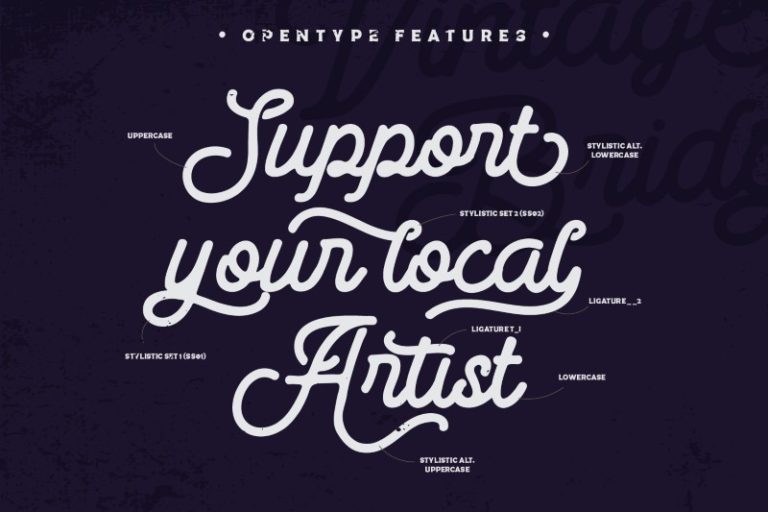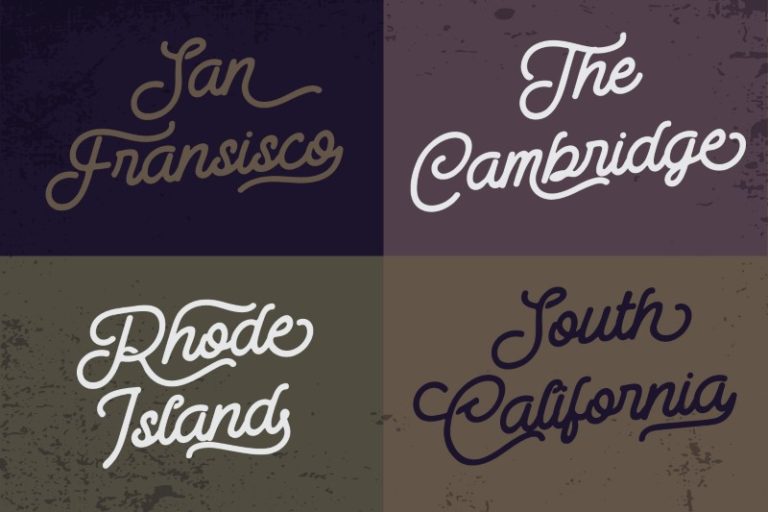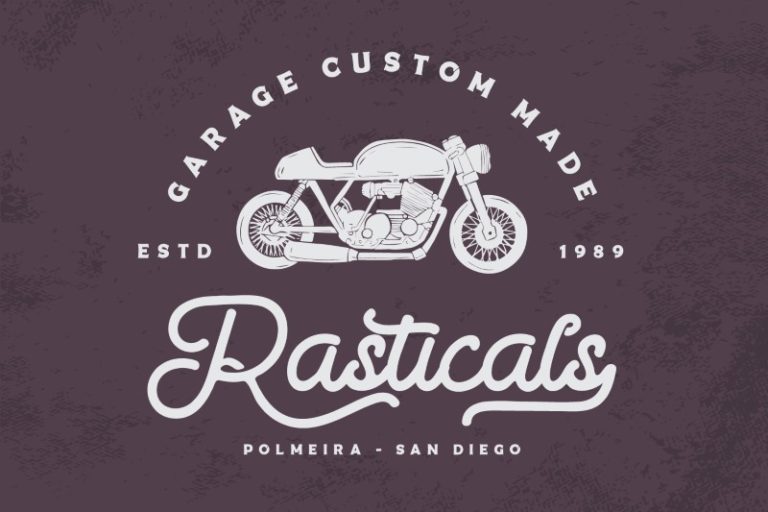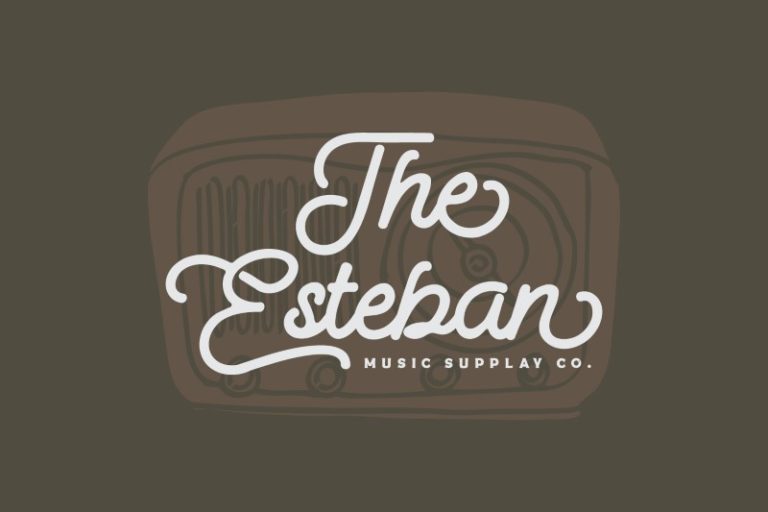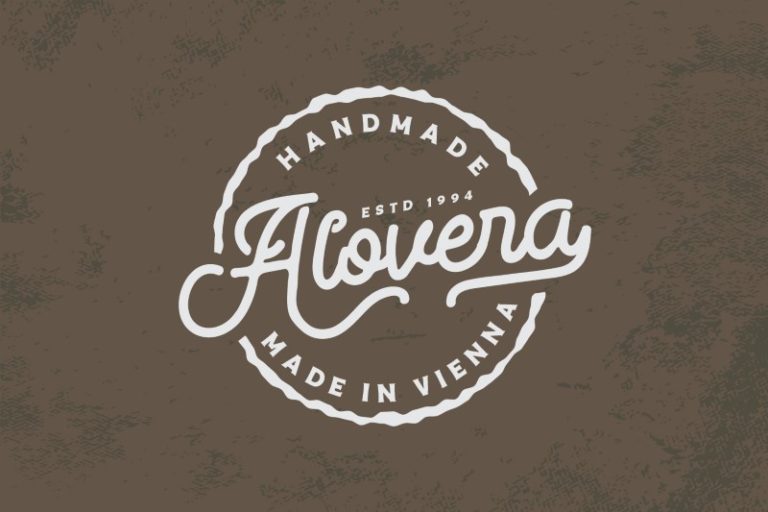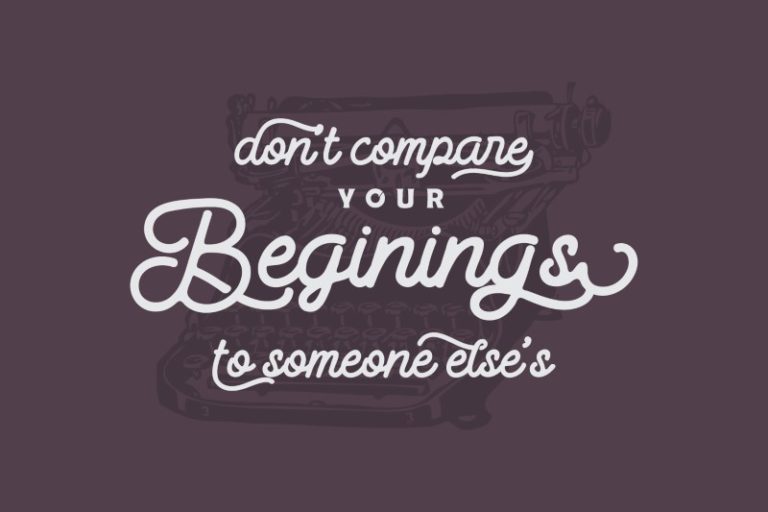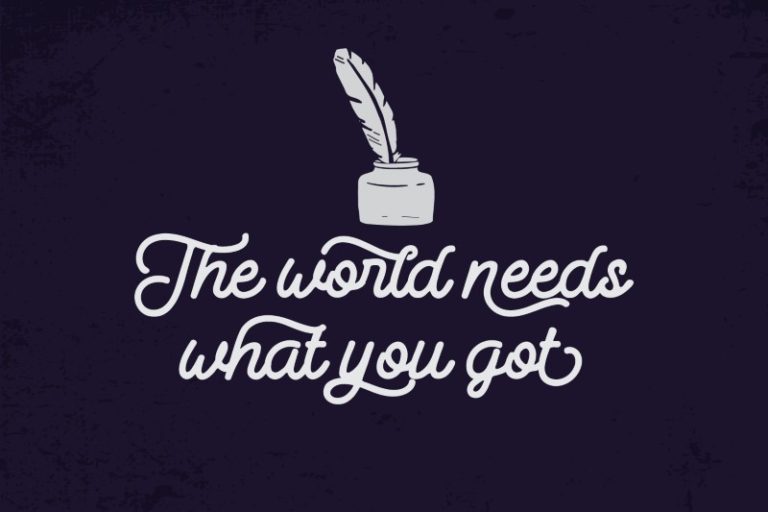
Vintage Bridge – Monoline Vintage Script Font
Vintage Bridge
Are you trying to make an elegant, modern, and stylish statement with your invitations, social media, website, or printed materials? Ready to enchant your audience and enhance your branding? Vintage Bridge script font is the answer!
Vintage Bridge is a gorgeous script font that will whisk you away to a place of style! We hope that through this elegance and passion edged font, you can maximize your designs, reign in sales or make lasting impressions. The ideal font for social media banners; posts, and ads, printed quotes, t-shirt designs, packaging, and a modern text overlaying any background images.
Features include:
- Ligatures
- Alternates
- Stylish Sets